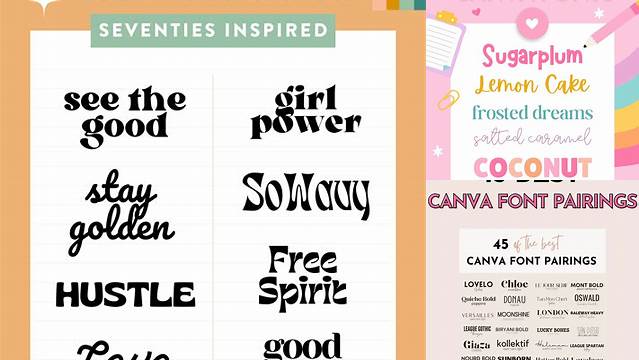
Cool Fonts In Canva: A Creative Guide
Hey guys! Ever wondered how to make cool fonts in Canva? You've landed in the right spot! Canva is an awesome tool for creating stunning designs, and fonts play a huge role in making your projects stand out. Let's dive into a comprehensive guide that’ll help you master the art of using fonts in Canva. We’re going to cover everything from the basics to advanced techniques, so get ready to unleash your inner font wizard!
1. Understanding Canva's Font Library
Canva boasts a massive library of fonts, but navigating it can be a little overwhelming. The key is to understand the different categories and styles available. There are serif fonts, which are classic and elegant; sans-serif fonts, which are clean and modern; script fonts, which mimic handwriting; and display fonts, which are bold and attention-grabbing. When you're learning how to make cool fonts in Canva, familiarizing yourself with these categories is crucial. Think about the message you want to convey with your design. A formal document might benefit from a serif font like Times New Roman or Garamond, while a fun, casual poster might be better suited to a sans-serif font like Helvetica or Arial. Script fonts can add a touch of elegance or whimsy, but they're best used sparingly, as they can be harder to read in large blocks of text. Display fonts are your go-to for headlines and titles, where you want to make a big impact. Experiment with different fonts to see what works best for your project. Don't be afraid to mix and match, but remember to keep the overall look cohesive. A good rule of thumb is to use no more than two or three different fonts in a single design. This prevents your design from looking cluttered and ensures that your message remains clear. Canva also allows you to upload your own fonts if you can't find what you're looking for in their library. This can be a game-changer if you have a specific brand font or want to use something truly unique. So, dive into Canva's font library, explore the different styles, and start experimenting with how to make cool fonts in Canva!
2. How to Access and Choose Fonts in Canva
So, you're ready to make cool fonts in Canva, but how do you actually access them? It's super easy! When you're in the Canva editor, simply click on the text element you want to change, and the font options will appear in the toolbar at the top of the screen. You'll see a dropdown menu with the current font selected. Click on that, and a whole world of fonts will open up! You can scroll through the list, or use the search bar to find a specific font name. Canva also has helpful filters that allow you to sort fonts by style (serif, sans-serif, script, display), language, and even popularity. This is a fantastic way to narrow down your options and find the perfect font for your project. Choosing the right font is crucial for effective design. Think about the tone and message you want to convey. A playful design might benefit from a whimsical script font, while a professional document might call for a more serious serif or sans-serif font. Consider the readability of the font as well. While some fonts look beautiful, they can be difficult to read, especially in smaller sizes or in large blocks of text. It's also important to think about the context of your design. Where will it be used? A font that looks great on a computer screen might not translate well to print, and vice versa. Experiment with different font sizes and styles to see what works best for your project. Don't be afraid to try something new, but always prioritize clarity and readability. By taking the time to choose the right font, you can make cool fonts in Canva and elevate your designs to the next level.
3. Font Pairing Tips and Tricks
One of the secrets to making cool fonts in Canva is mastering the art of font pairing. Combining fonts effectively can create visual interest and enhance your message, but pairing fonts that clash can make your design look cluttered and unprofessional. So, how do you choose fonts that work well together? A good starting point is to pair a serif font with a sans-serif font. The contrast between the two styles can create a balanced and visually appealing look. For example, you might pair a classic serif font like Garamond for your headings with a clean sans-serif font like Open Sans for your body text. Another approach is to use different weights and styles of the same font family. This can create a cohesive look while still adding visual variety. For example, you might use a bold version of a font for your headings and a regular version for your body text. Canva also offers pre-made font pairings that you can use as a starting point. These pairings have been carefully curated by designers to ensure they work well together, so they're a great option if you're feeling overwhelmed by the choices. Remember to consider the overall tone and message of your design when pairing fonts. A formal design might call for more traditional font pairings, while a casual design might allow for more experimentation. Don't be afraid to break the rules and try something new, but always prioritize readability and visual harmony. By following these tips and tricks, you can make cool fonts in Canva and create designs that truly shine.
4. Using Font Styles: Bold, Italic, Underline
To truly make cool fonts in Canva, you need to know how to use font styles effectively. Bold, italic, and underline are your basic tools for adding emphasis and visual variety to your text. But remember, less is often more. Overusing these styles can make your design look cluttered and unprofessional. Bold is great for highlighting key words or phrases, drawing the reader's attention to important information. Italic can add a touch of elegance or be used to indicate emphasis, such as in a quote. Underline, however, should be used sparingly. In modern design, underlines are often associated with hyperlinks, so using them for emphasis can be confusing for your audience. When choosing which style to use, consider the overall tone and message of your design. Bold is a strong, assertive style, while italic is more subtle and refined. Underline can be useful in specific contexts, but it's generally best to avoid it unless you have a specific reason to use it. Experiment with different font styles to see what works best for your project. Try using bold for your headings and italic for your subheadings, or use bold to highlight key words in your body text. Just remember to use these styles intentionally and consistently throughout your design. In Canva, applying these styles is super easy. Simply select the text you want to modify, and click the B for bold, I for italic, or U for underline in the toolbar. You can also use keyboard shortcuts: Ctrl+B (or Cmd+B on a Mac) for bold, Ctrl+I (or Cmd+I) for italic, and Ctrl+U (or Cmd+U) for underline. By mastering the use of font styles, you can make cool fonts in Canva and create designs that are both visually appealing and effective at communicating your message.
5. Adjusting Font Size and Spacing
When learning how to make cool fonts in Canva, don't underestimate the power of adjusting font size and spacing. These simple adjustments can have a huge impact on the readability and visual appeal of your text. Font size is crucial for ensuring that your text is easy to read. Too small, and your audience will struggle to decipher your message. Too large, and your text can overwhelm your design. The ideal font size will depend on the context of your design. For example, body text in a document or website should be a comfortable reading size, typically around 12-14 points. Headings and titles, on the other hand, can be larger to grab attention. Canva makes it easy to adjust font size. Simply select the text you want to modify, and use the font size dropdown menu in the toolbar to choose a new size. You can also type a specific size into the box. Spacing, also known as kerning and leading, refers to the space between letters and lines of text. Adjusting spacing can improve readability and create visual interest. Kerning refers to the space between individual letters, while leading refers to the space between lines of text. Too little spacing can make your text look cramped and difficult to read, while too much spacing can make it look disconnected. Canva provides tools for adjusting both kerning and leading. Select the text you want to modify, and click on the